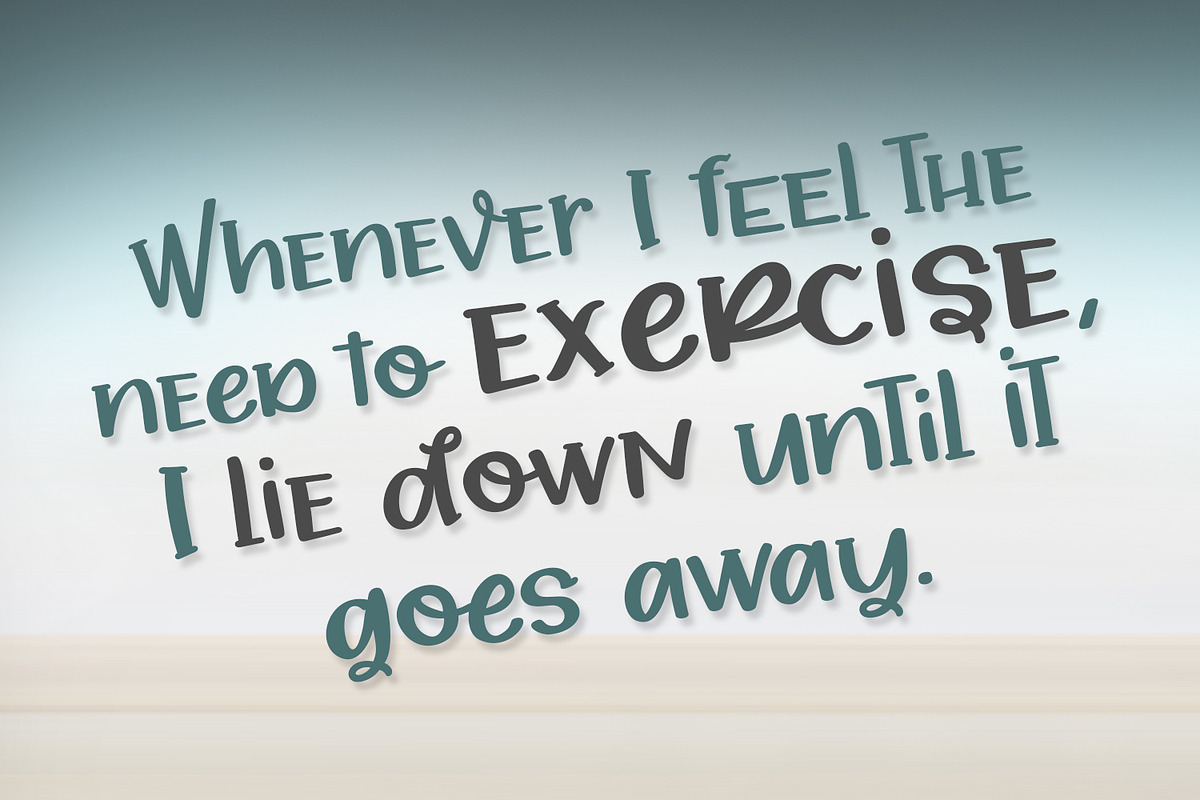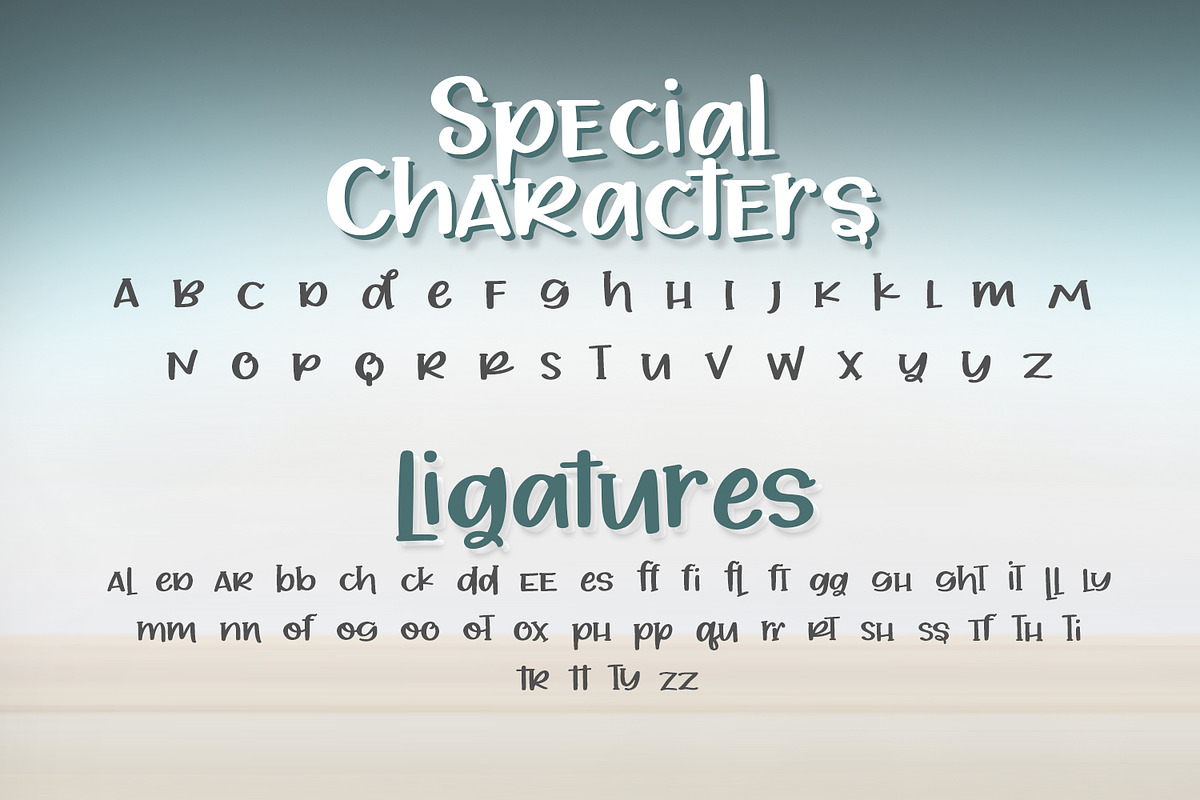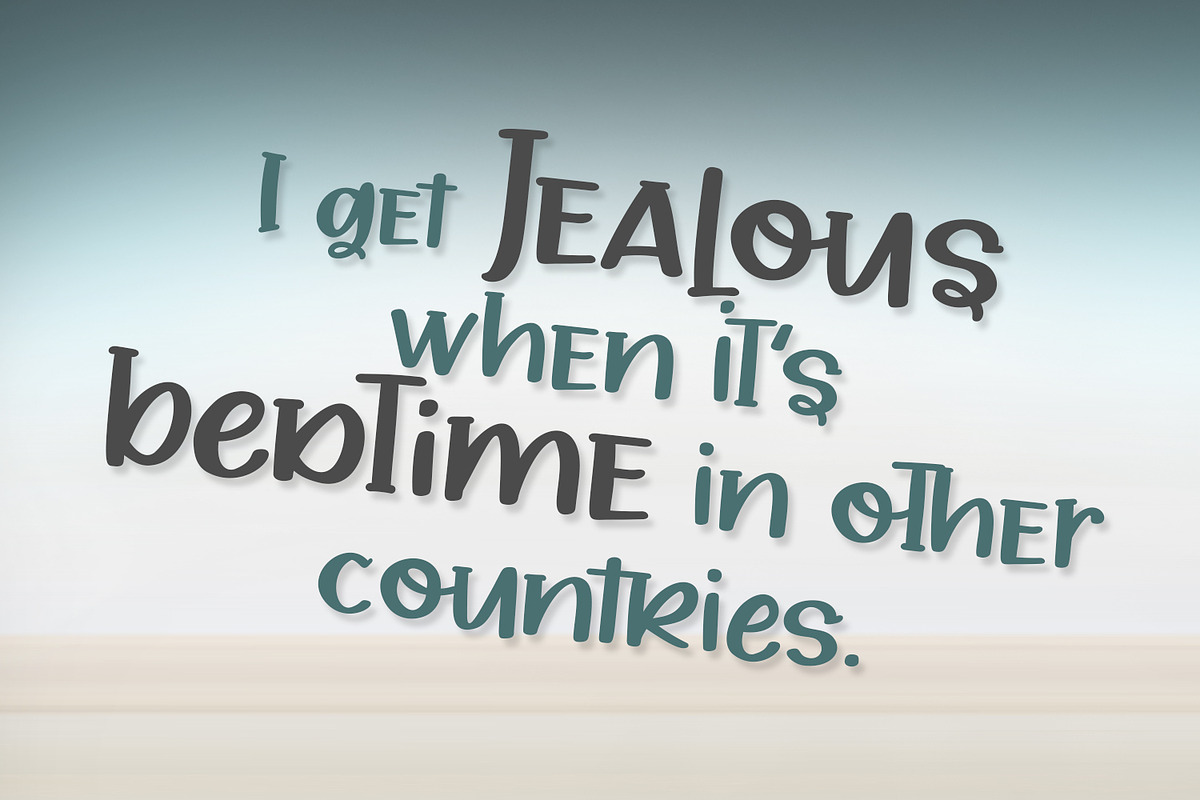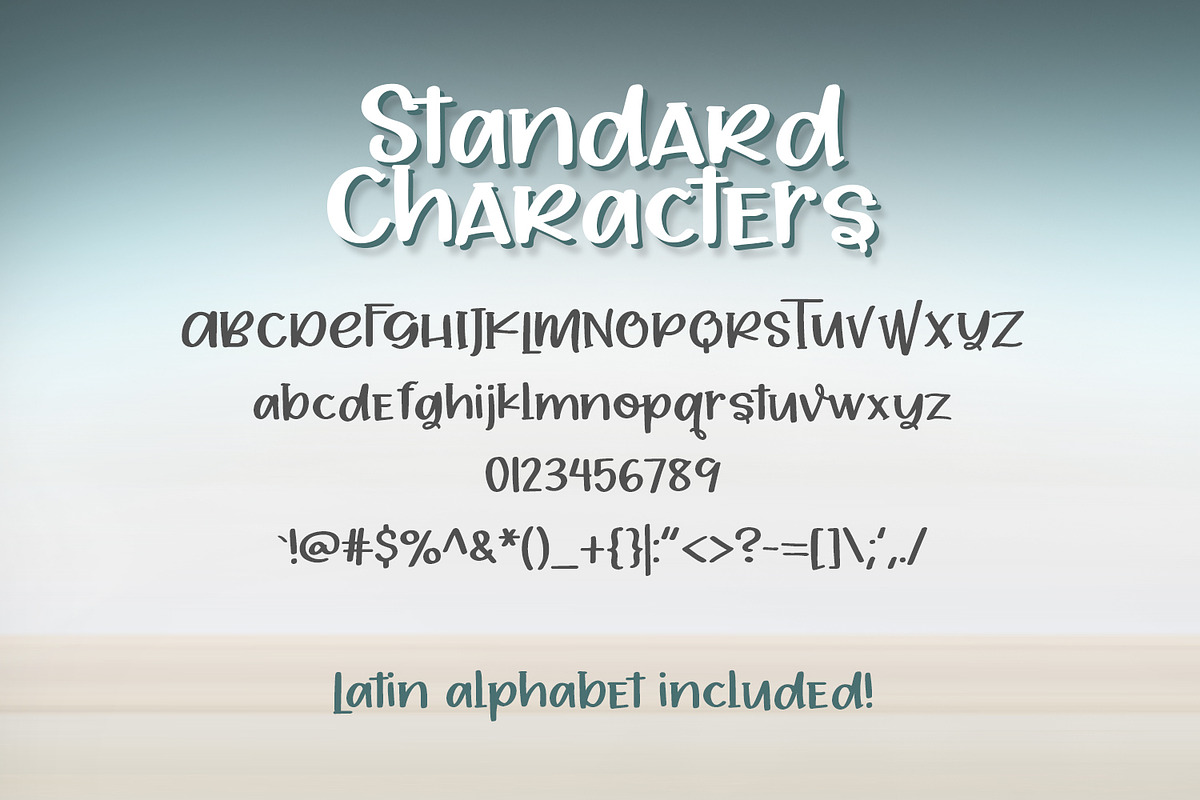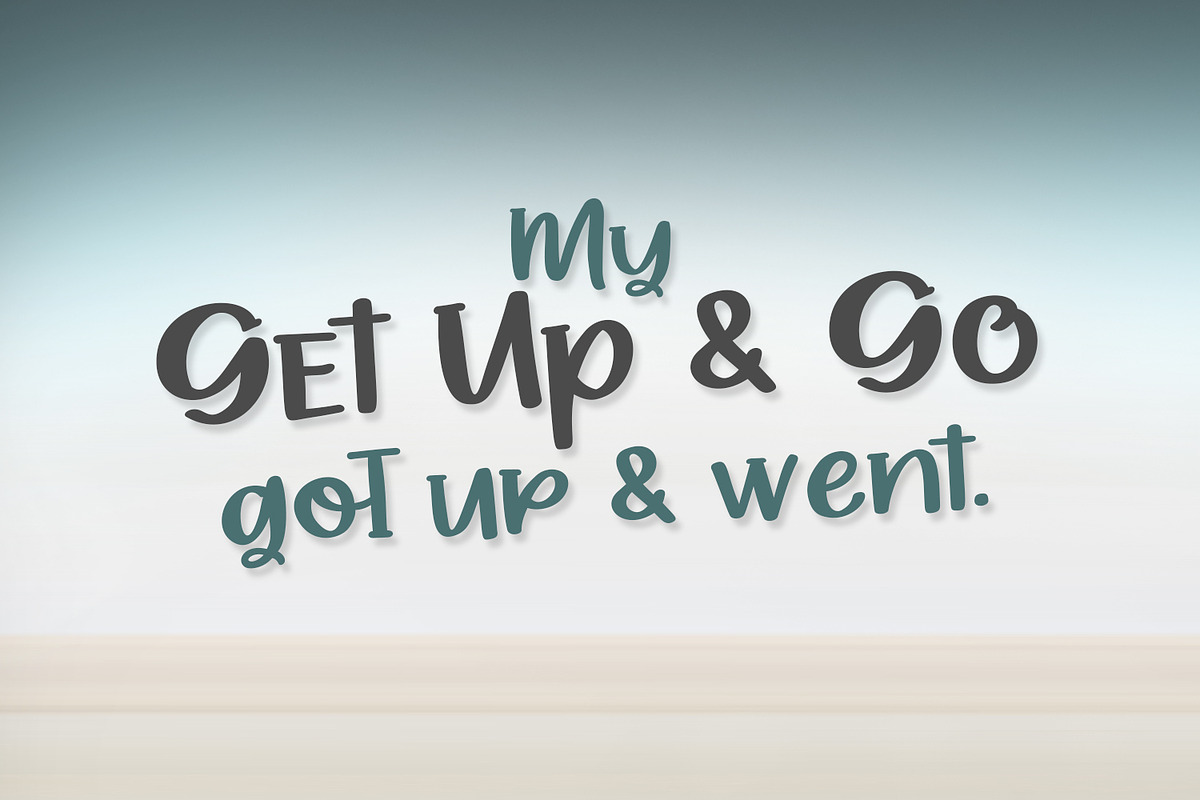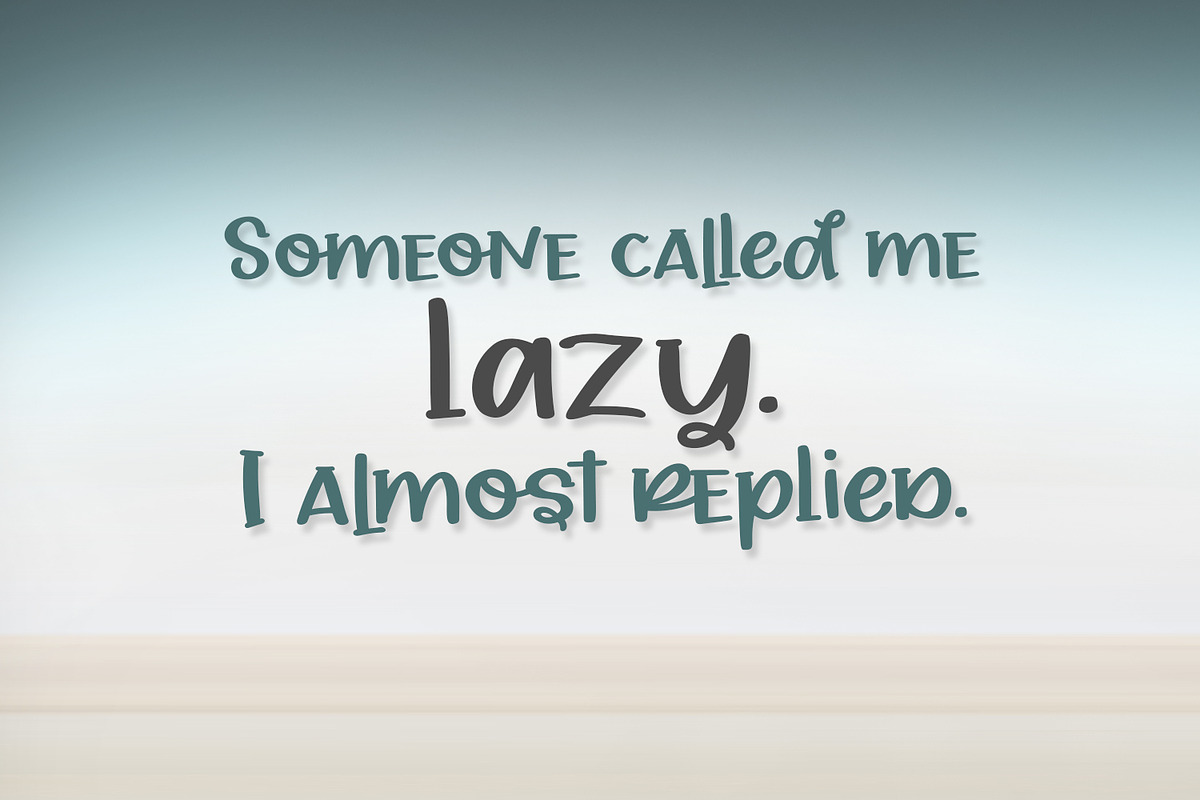
Laxy Daisy Font
A handwritten font with over 70 alternates!
• Latin characters included
Why Laxy Daisy Font is worth a look
Laxy Daisy Font by A Little Smidge fits naturally into Branding, posters, packaging, typography.